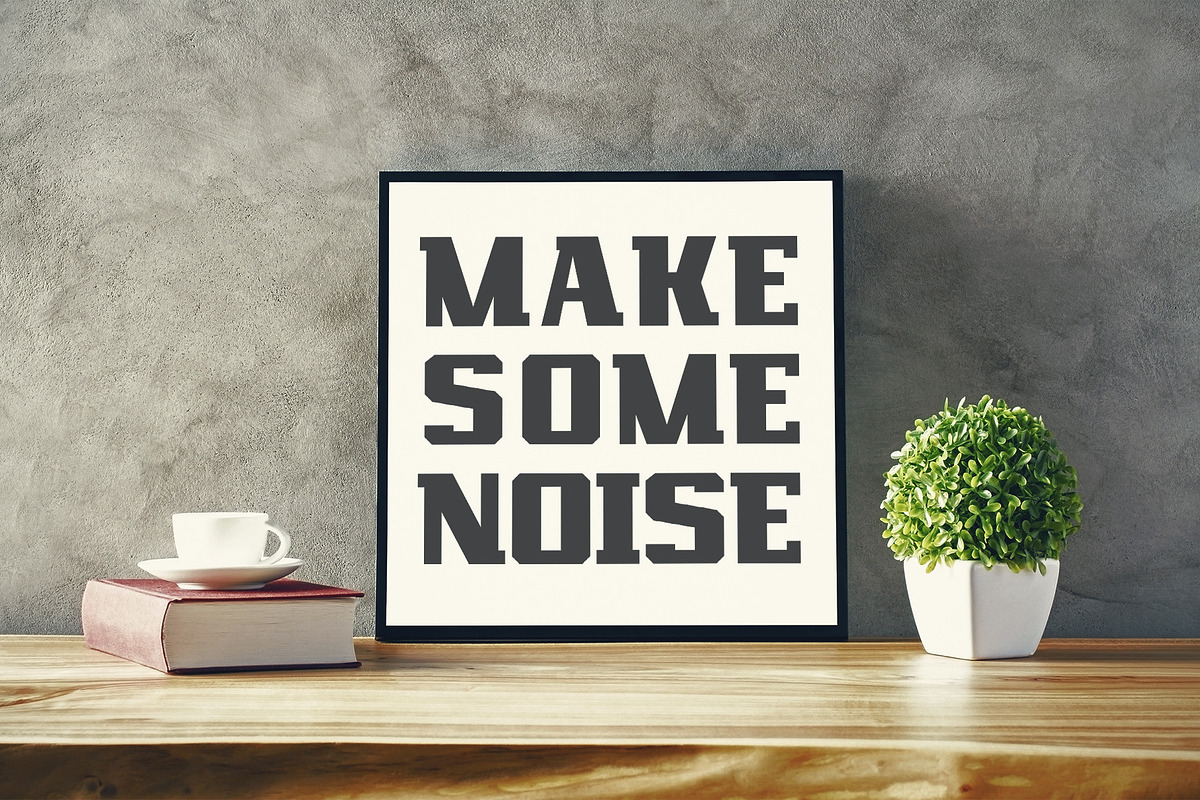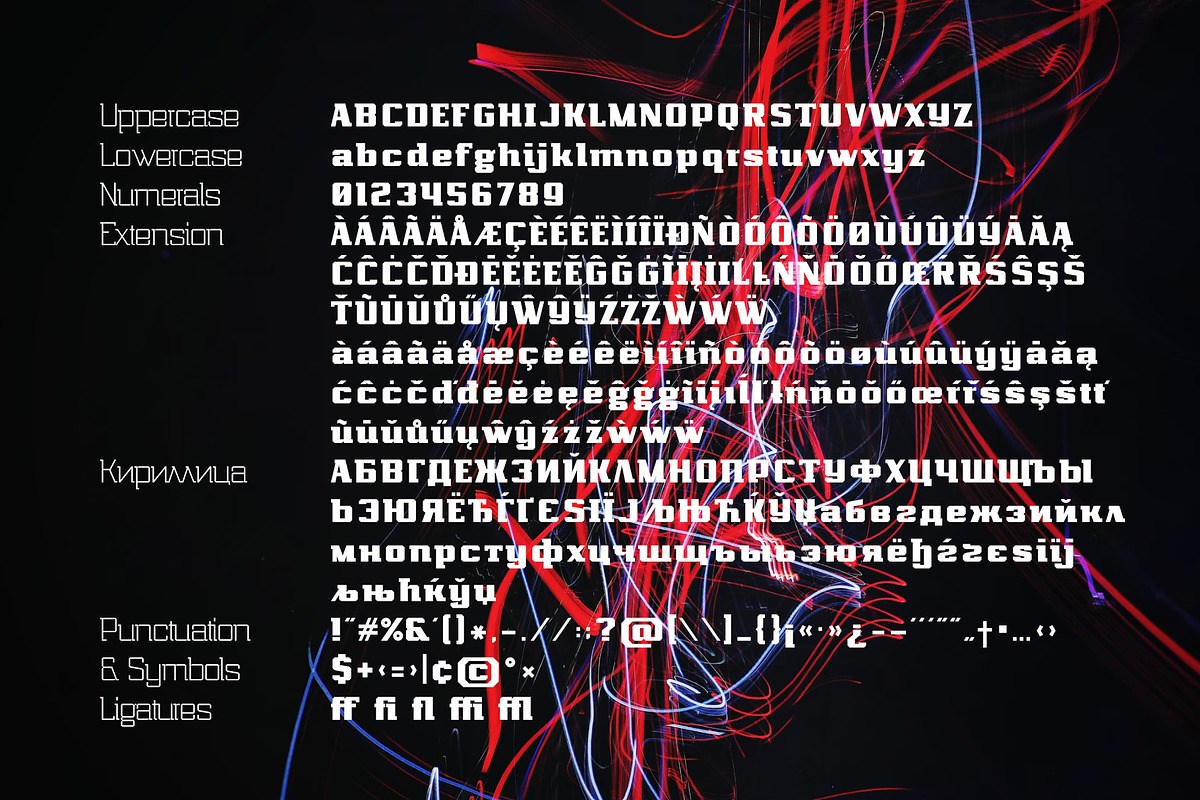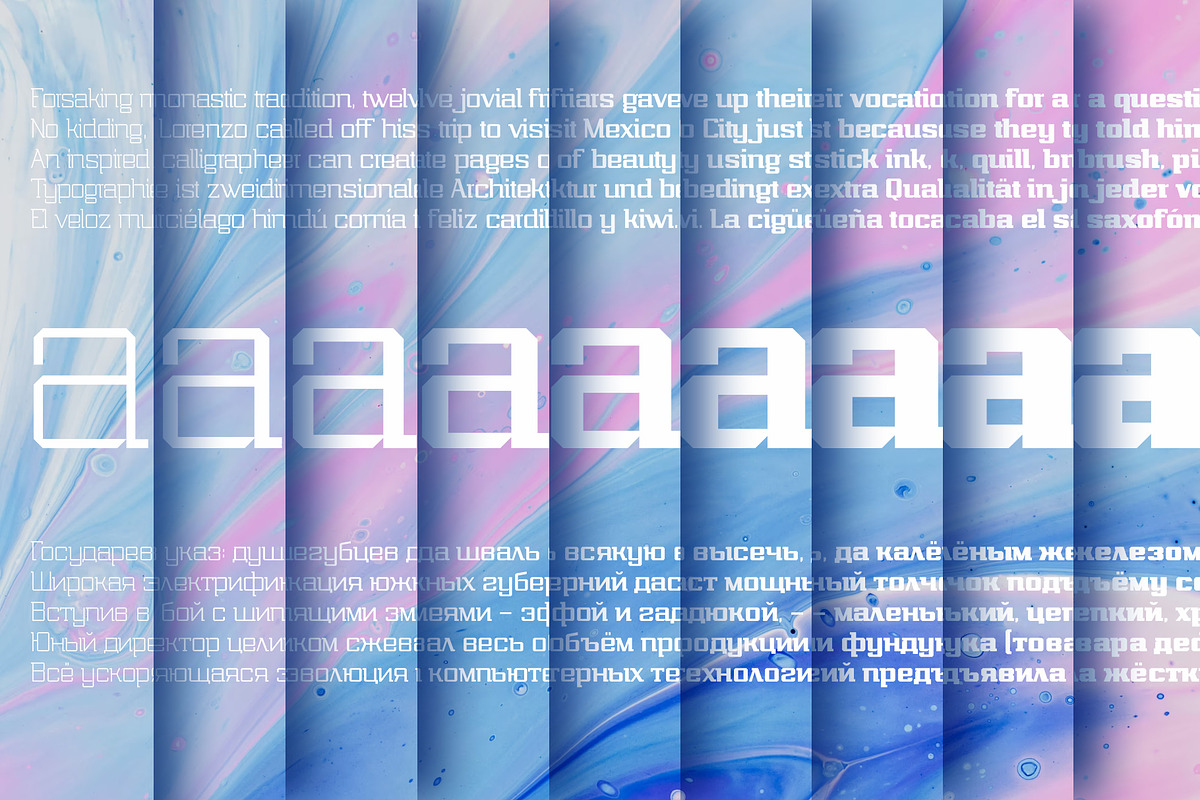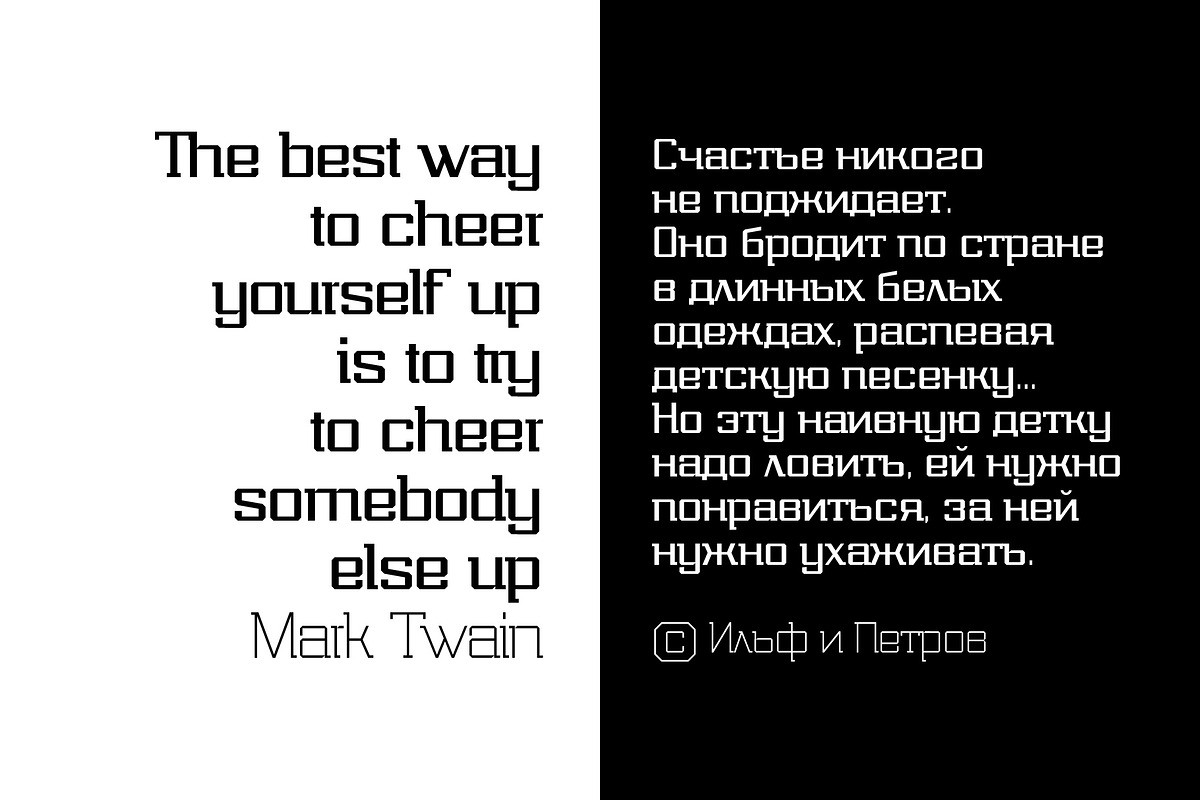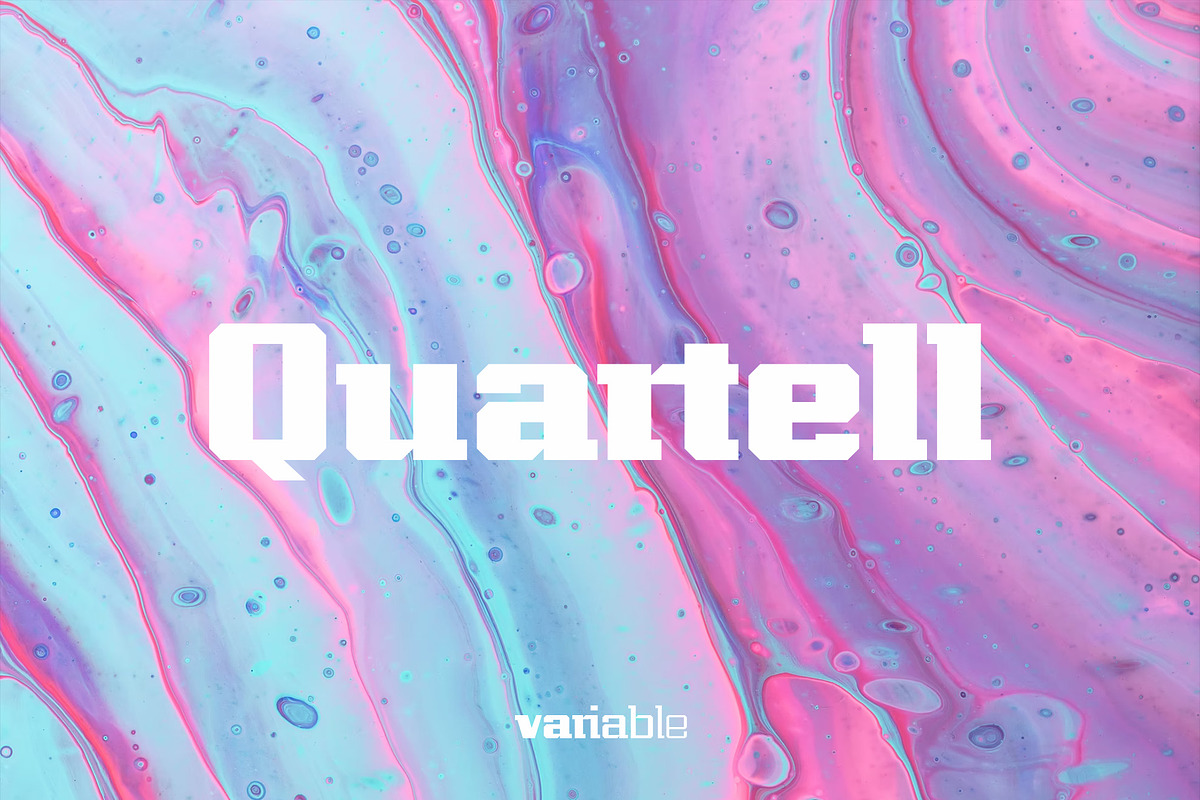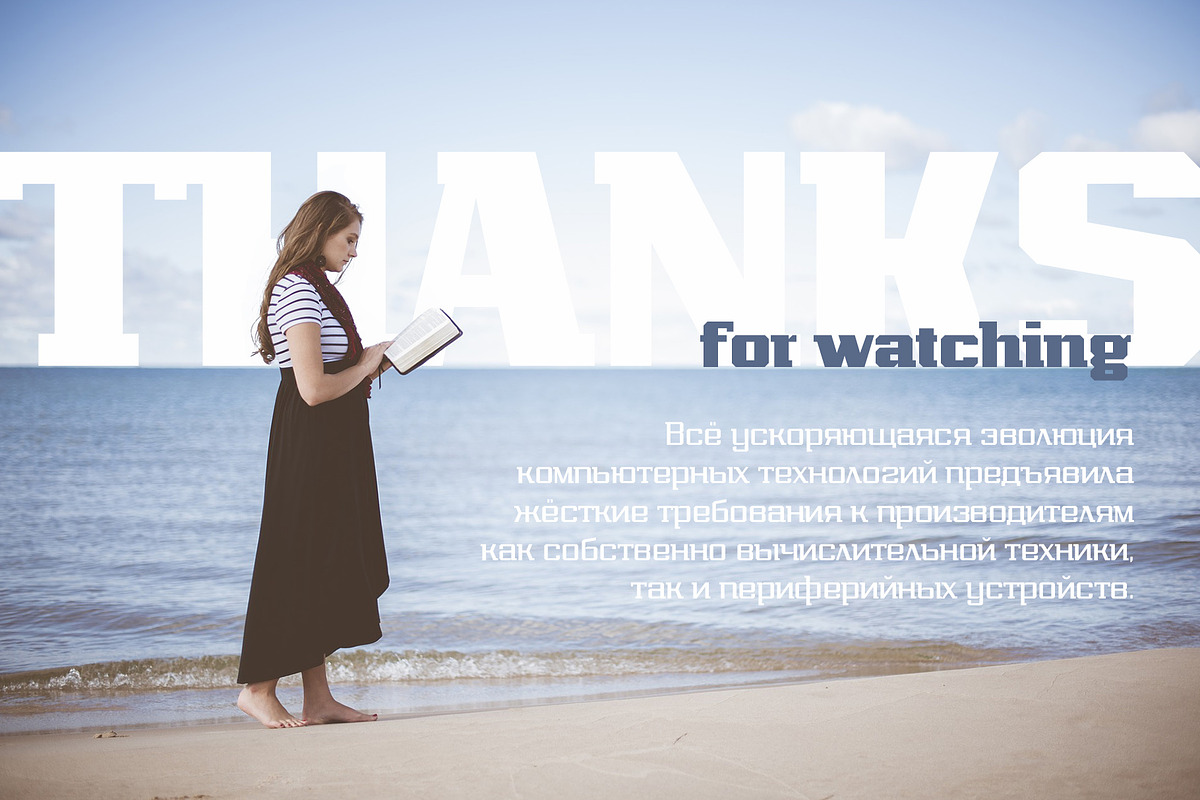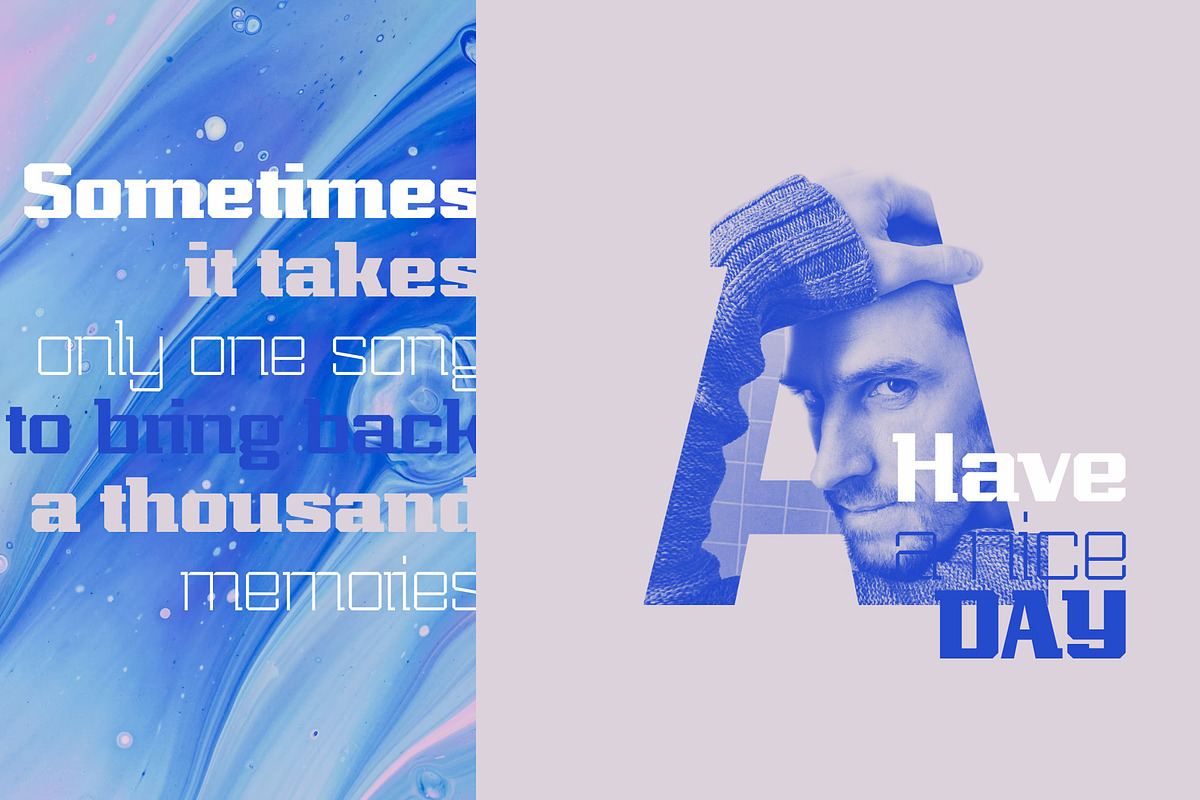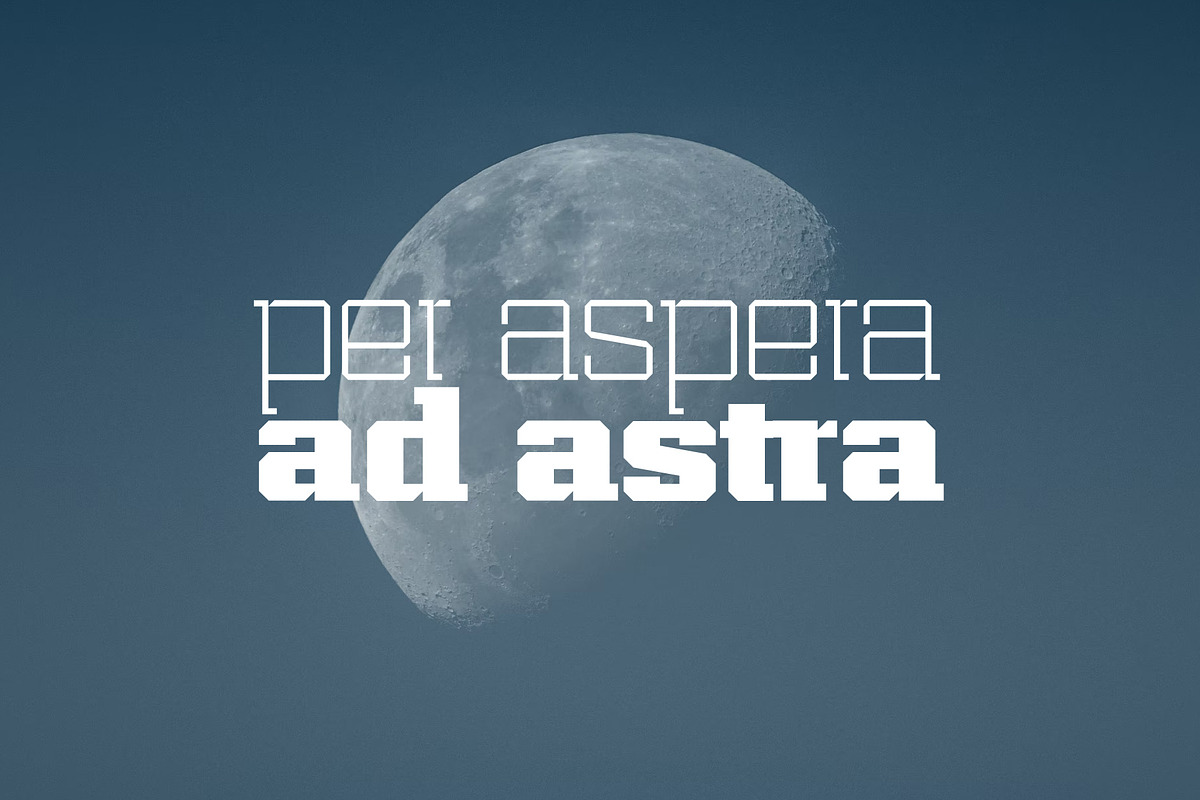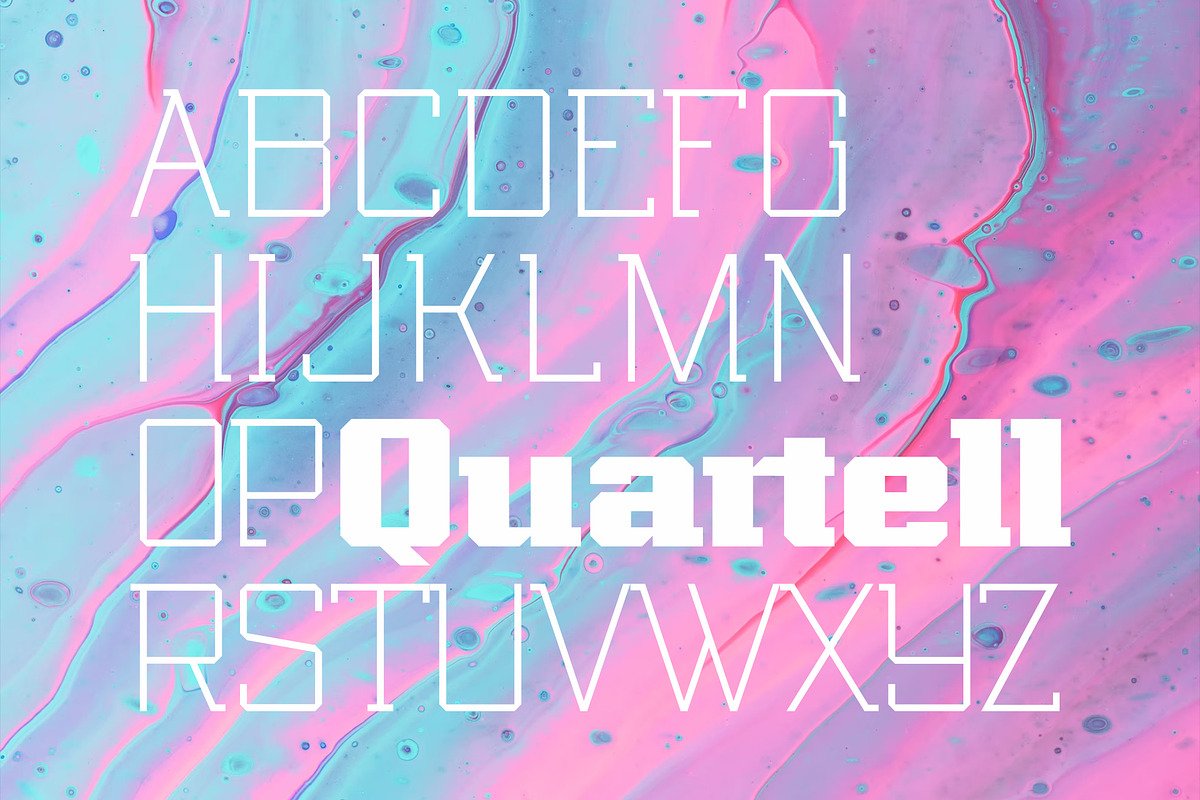
Quartell variable
Hello! Introducing Quartell - modern display typeface family.
Font looks amazing as alone words and as full text blocks. Also it good for bright captions and unforgettable logos It have supporting for many languages as: Czech, Danish and Norwegian, Deutsch, English, Espanol, French, Italiano, Magyar, Nederlands, Polish, Portuguese, Finnish, Swedish, Turkish, Russian and other based on extended latin.
Attention! This is variable font! It includes 9 styles: from Thin to Black.